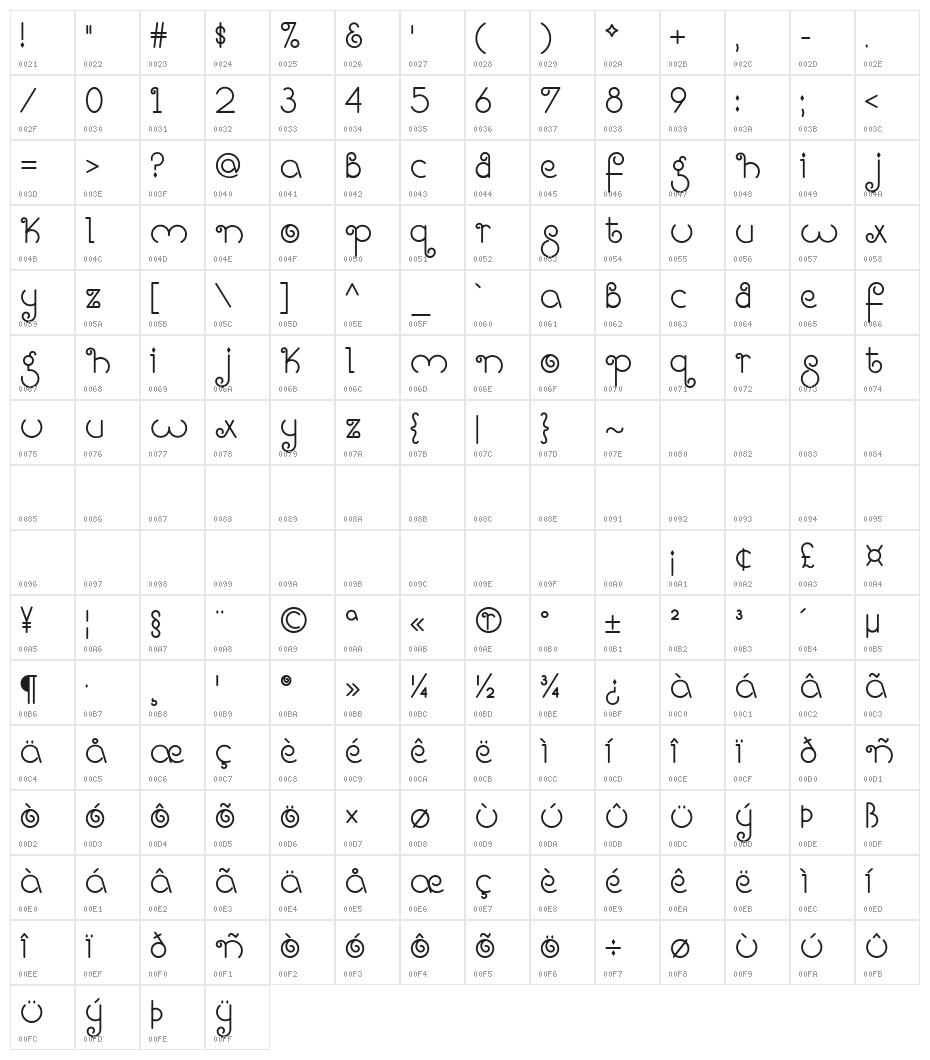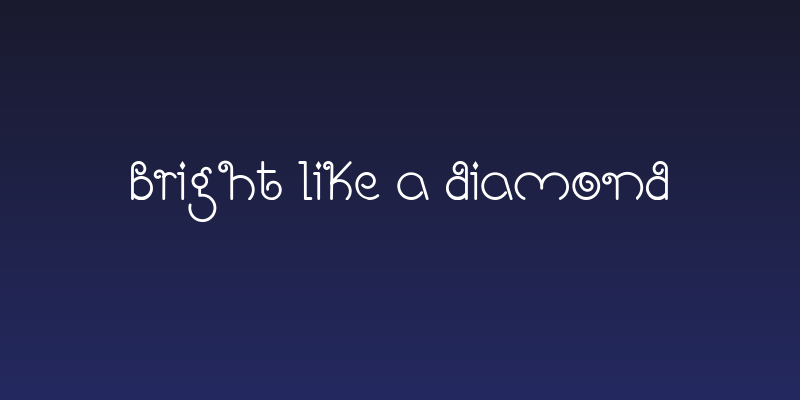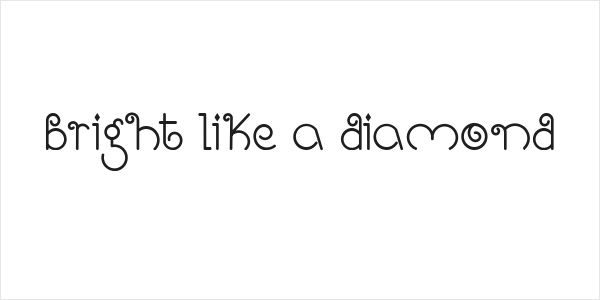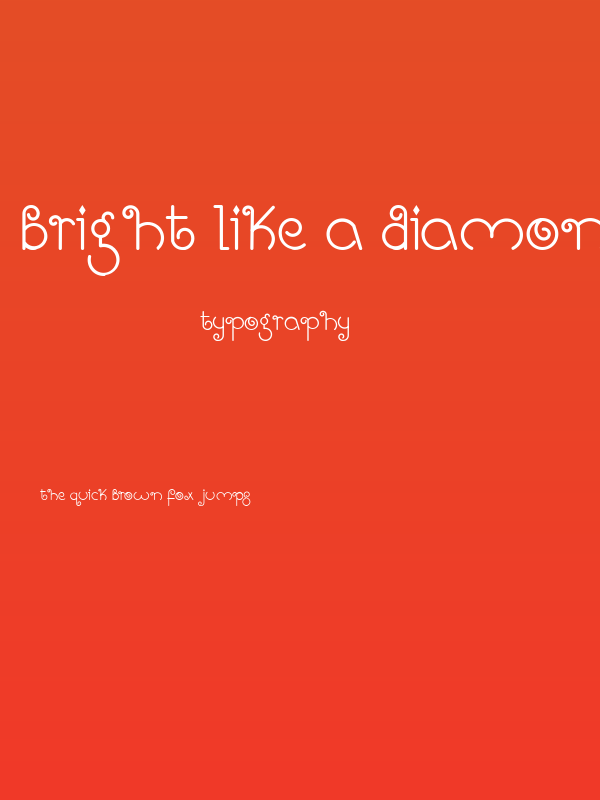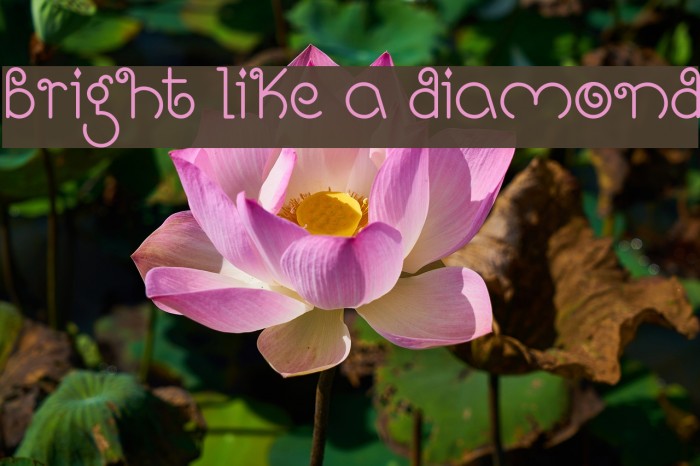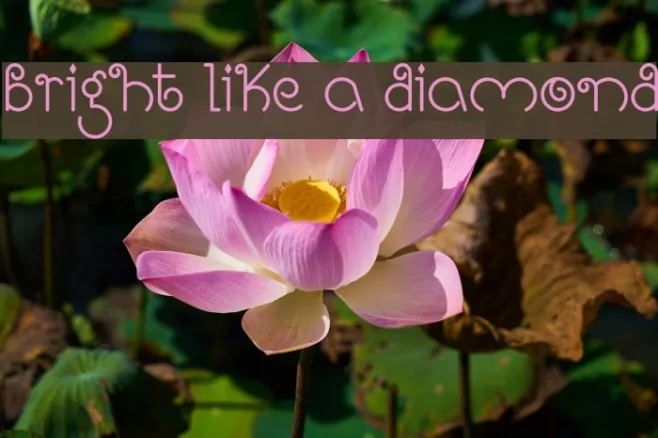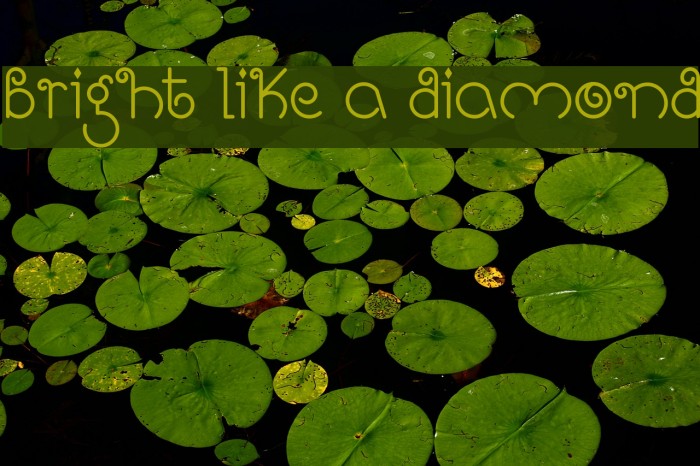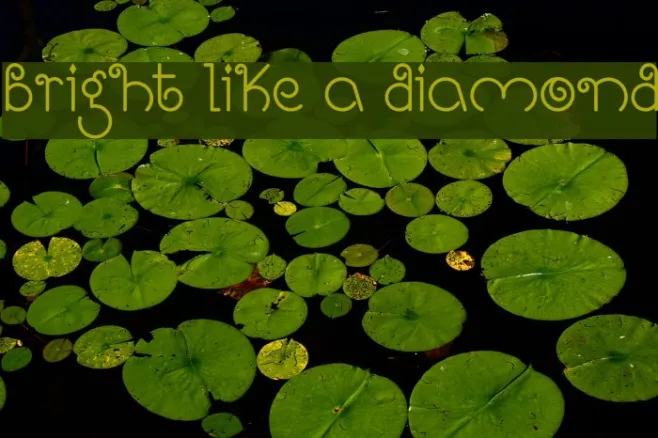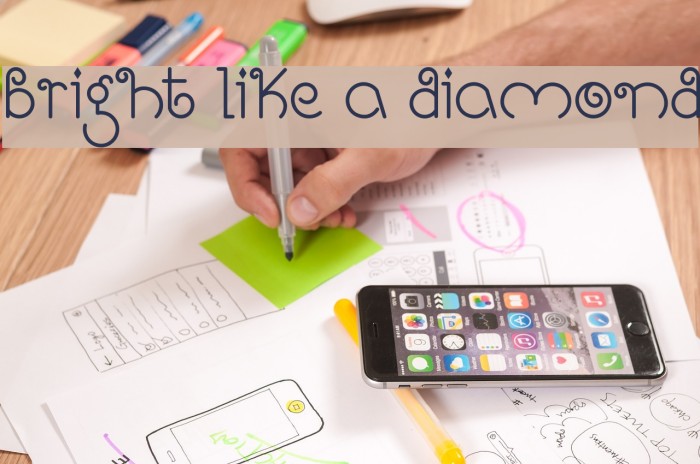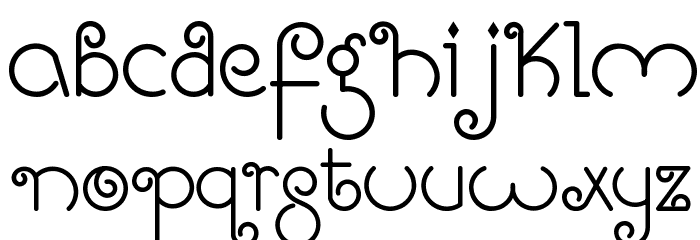
Bright Like A Diamond Font
Bright Like A Diamond Description
This font features a whimsical and playful design with a unique blend of rounded and angular elements. The characters are crafted with a consistent stroke width, giving a clean and modern appearance. The uppercase and lowercase letters maintain a cohesive style, with some letters incorporating distinctive loops and curls, adding a touch of elegance and creativity. The numbers and special characters follow the same design principles, ensuring uniformity across the font. This font's artistic flair makes it suitable for projects that require a fun and engaging visual appeal.
| Proposed Projects | Ideal for children's books, playful branding, creative posters, and artistic invitations. |